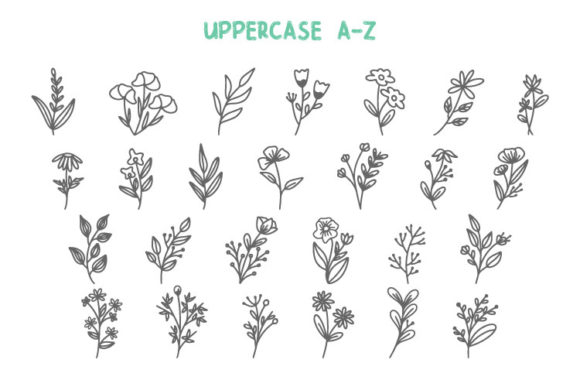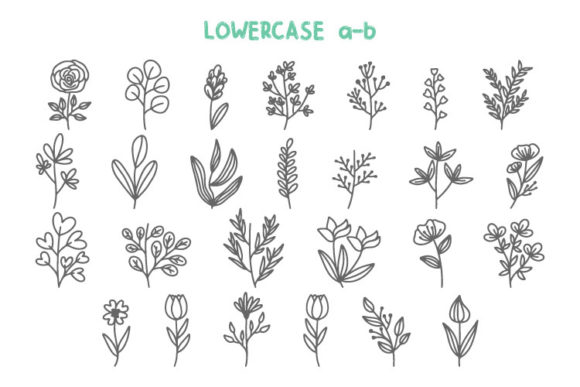
The Art of Adding a Touch of Nature to Your Designs
As a designer, there’s nothing quite like the thrill of bringing a new project to life. You’ve got a blank canvas, a spark of inspiration, and a vision for something truly unique. But sometimes, no matter how hard you try, your designs can feel a bit… flat. That’s where the magic of typography comes in – and one of the most enchanting fonts I’ve discovered is the Botani Font.
This lovely dingbats font is a masterclass in subtlety, weaving delicate botanical elements into every letter and symbol. Whether you’re crafting a wedding invitation, a children’s book, or a website that’s all about nature, the Botani Font is the perfect way to add a touch of whimsy and personality to your project. And for designers, it’s a valuable addition to any library – trust me, you won’t regret adding it to your collection!
Botani Font Key Features
- Font Family: Botani comes in a single font family with multiple styles, including Regular, Bold, Italic, and Bold Italic.
- Unique Characteristics: Botani features a unique blend of natural and geometric elements, resulting in a distinctive and elegant appearance.
Botani Font Review
Overall, I think Botani Font has some great qualities that make it a solid choice for designers looking for a natural, organic feel.
- Botani Font’s letterforms are beautifully crafted, with subtle nuances that give the font a handmade feel.
- The font’s ligatures and contextual alternates add a level of sophistication and elegance.
- The font’s range of weights and styles provides plenty of options for designers to work with.
- The font’s limited character set may be a concern for designers who need to work with non-English languages.
- The font’s high x-height may not be suitable for all design applications, particularly those that require a more subtle look.
Overall, I think Botani Font is a great choice for designers who want a natural, organic feel in their designs. While it may have some limitations, the font’s unique qualities make it a worthwhile investment for designers who want to stand out from the crowd.
Tips for Getting the Most Out of Botani Font
Botani Font is a beautiful and elegant font that works well in various design contexts. To get the most out of it, consider the following tips:
- Use it for titles and headings to add a touch of sophistication to your design.
- Pair it with a clean and simple font for body text to create a balanced and harmonious design.
- Experiment with different font sizes and styles to create visual interest and emphasis.
Botani Font is suitable for a variety of design projects, including:
- Wedding invitations and stationery. Alternatives to Botani Font for Designers
- Choose a pastel color palette to match the garden theme.
- Use the Botani Font for the title, such as “Spring into Bloom” or “Garden Gala”.
- Combine the font with illustrations of flowers or leaves to add a whimsical touch.
- Pair the font with a watercolor texture to give the invitation a soft, romantic feel.
- Use a combination of serif and sans-serif fonts to create a visually appealing contrast.
- Choose a natural color palette, such as earthy tones or pastel shades.
- Use the Botani Font for the journal’s title, such as “Botanical Discoveries” or “Nature’s Notebook”.